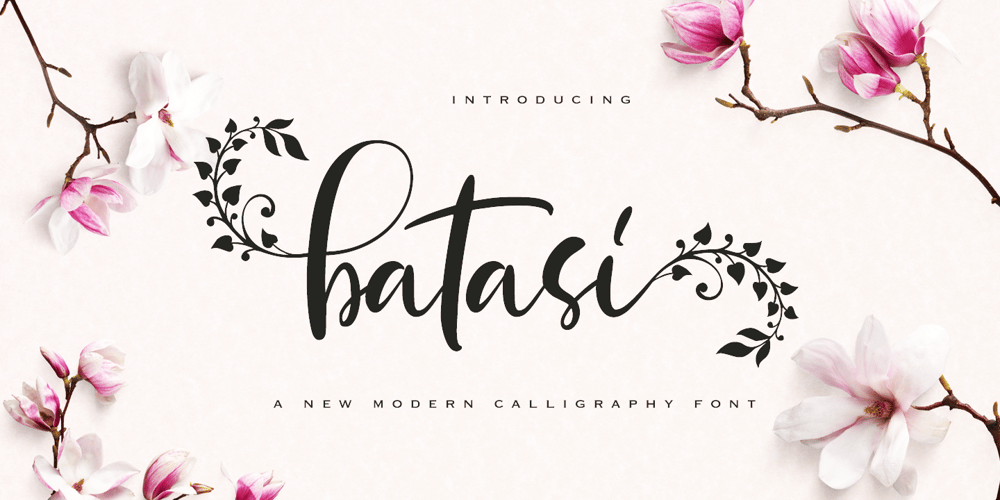
Batasi Font Family was designed by Muhammad Zaini and published by Cocodesign. Batasi contains 1 styles and family package options. hastag Modern Calligraphy. This font was designed by handwriting, and it has a modern and unique forms of calligraphy, the writing style is very natural.The Features of this fonts is; * Standart ligatures * Stylistic Alternates * Contextual Alternates * Stylistic setsCan be used for various purposes.such as headings, logos, wedding invitation, t-shirt, letterhead, signage, lable, news, posters, badges etc. To enable the OpenType Stylistic alternates, you need a program that supports OpenType features such as Adobe Illustrator CS, Adobe Indesign & CorelDraw X6-X7.